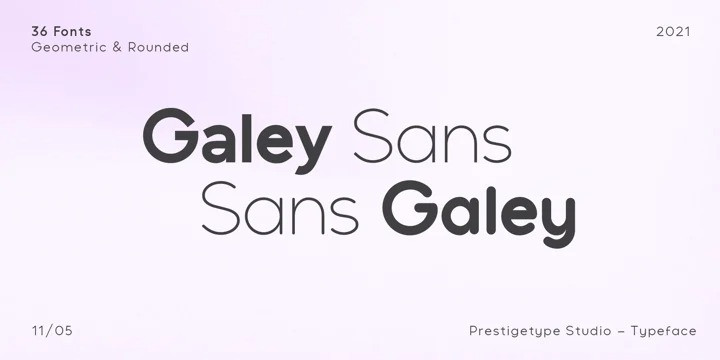
Galey Sans Serif Font
This font is a modern geometric grotesk sans serif, Developed with geometric forms that have been optically corrected for better legibility. Each style comes in 18 weights with italics + variable fonts, from thin to black, includes 592 glyphs in each weight.
Each style has its unique characters include OpenType features and extended language support (+Cyrillic) to suit a different purpose. Designed with a modern minimalist in mind, Perfectly use for branding, display, logo, text, headline, web design, and many editorial design purposes.